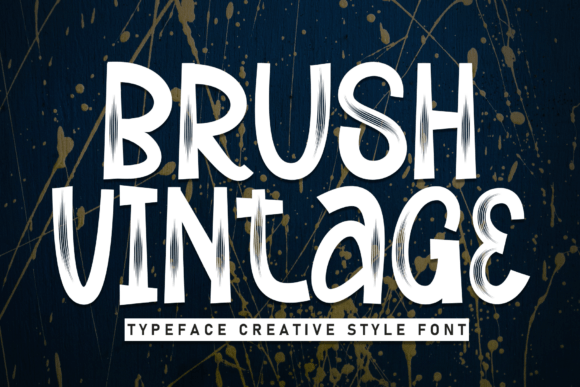
Discover the Charm of Brush Vintage Font
Have you ever been in the middle of a design project, pouring your heart and soul into it, only to realize that something’s missing? You’re not quite sure what it is, but you know it’s not quite coming together as you’d like. For me, that something was a font – a beautiful, whimsical font that would add a touch of personality to my design. That’s when I stumbled upon Brush Vintage Font, and I just knew I’d found the one! 😊
A Personal Review of Brush Vintage Font
I’m excited to share my thoughts on Brush Vintage Font, and I hope you’ll find my review helpful in your own design journey.
- ✨ Unique and Whimsical: Brush Vintage Font has a one-of-a-kind charm that’s sure to make your designs stand out.
- ✅ Easy to Read: Despite its playful nature, this font remains surprisingly legible, even at smaller sizes.
- 💕 Emotional Connection: The font’s friendly, approachable vibe makes it perfect for creating heartfelt and personal designs, like wedding invitations or greeting cards.
While Brush Vintage Font is an amazing addition to any design project, there are a few things to keep in mind:
- ⚠️ Not Suitable for Body Text: Due to its decorative nature, Brush Vintage Font is best used for headings or titles, rather than large blocks of text.
- 🤔 Limited Multilingual Support: While the font covers the basic English alphabet, it may not support more complex languages or special characters.
One of the exciting features of Brush Vintage Font is its support for OpenType features and glyphs. These allow you to access:
- Stylistic Alternates: Switch between different versions of letters and numbers to add variety to your text.
- Ligatures: Combine certain letter pairs for a more elegant look.
- Glyphs: Access additional characters, like symbols or icons, to enhance your design.
The Story Behind Brush Vintage Font
Brush Vintage Font was inspired by the nostalgic feel of vintage brush scripts. Its creator aimed to capture the essence of hand-painted signs and advertisements from the early 20th century. The result is a font that’s both playful and refined, perfect for adding a touch of whimsy to your designs.